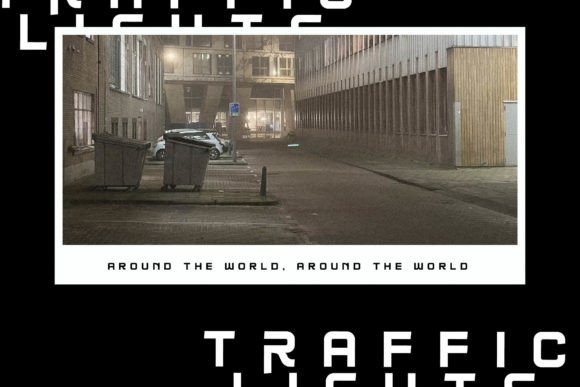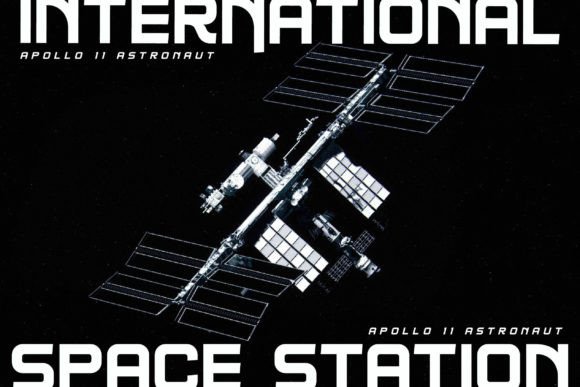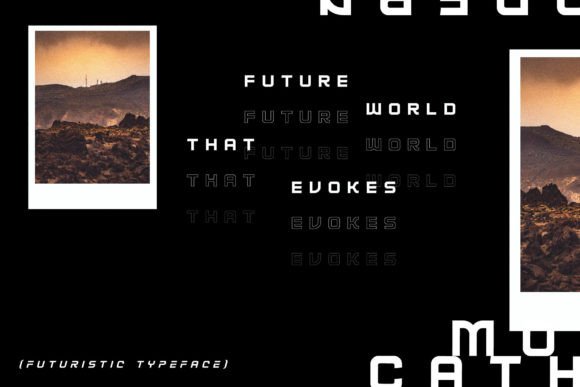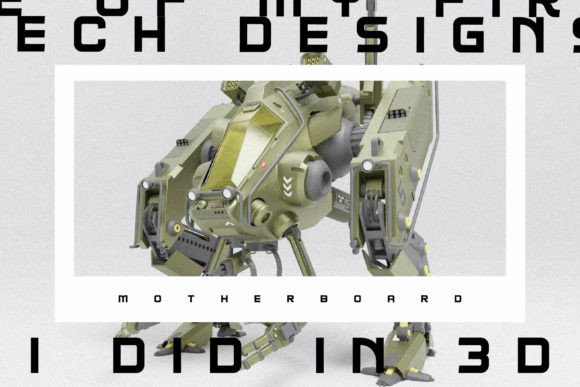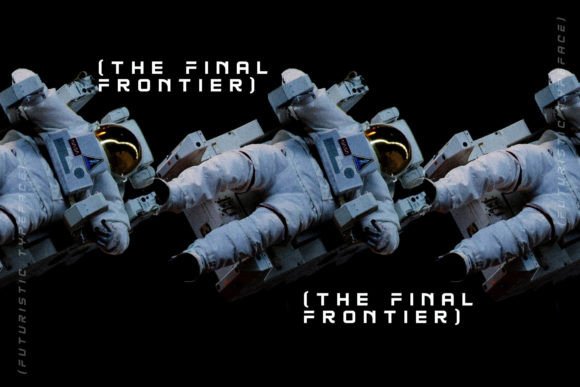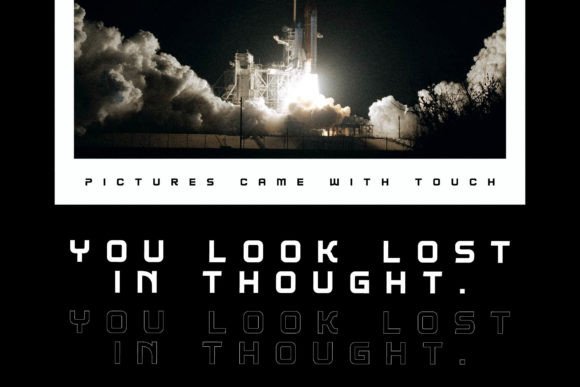
Introduction to Neo Cybern Font
Remember that moment when you’re working on a creative project and you’re searching for the perfect font to elevate your design? You browse through countless options, but nothing seems to fit the vibe you’re going for. That’s where the Neo Cybern Font comes in – a modern and classic sans serif font that’s sure to impress.
With its unique style and exquisite look, the Neo Cybern Font is perfect for an elegant and luxury logo, book or movie title design, fashion brand, magazine, clothes, lettering, quotes, and so much more. As a valuable design resource, this high-quality font offers a transparent background, making it easy to incorporate into any project. Whether you’re a seasoned designer or just starting out, the Neo Cybern Font is a must-have in your collection.
Key Features of Neo Cybern Font
- High-quality design resource with a unique, futuristic aesthetic, perfect for creative projects.
- Comes in a single weight, making it ideal for projects where a consistent font style is desired.
- Resolution-independent, ensuring crisp and clear typography across various display sizes and resolutions.
- Designed to be highly legible, even at smaller font sizes, making it suitable for a wide range of design applications.
Honest Review: Neo Cybern Font
I recently stumbled upon the Neo Cybern Font, and I’m excited to share my thoughts on this design resource. As a designer, I’m always on the lookout for high-quality fonts that can elevate my creative projects. The Neo Cybern Font definitely delivers.
- ✨ High-quality design: The font is well-crafted, with a unique blend of futuristic and cyberpunk elements that add a touch of sophistication to any design.
While the Neo Cybern Font is an excellent addition to any designer’s toolkit, I do have a few caveats to mention. ⚠️ For one, the font may not be suitable for all types of projects – its futuristic vibe might be too overwhelming for more conservative designs. Additionally, the font’s transparency feature can sometimes cause compatibility issues with certain design software.
Overall, I’m thoroughly impressed with the Neo Cybern Font. Its unique design and high-quality features make it a valuable resource for designers working on creative projects. While it may have some limitations, I believe the benefits far outweigh the drawbacks.
Tips for Getting the Most Out of Neo Cybern Font
Use Neo Cybern Font on a transparent background to create a unique and eye-catching design. Experiment with different font sizes and colors to add depth and visual interest to your creative project. You can also combine Neo Cybern Font with other design resources to create a cohesive and high-quality design.
Neo Cybern Font is perfect for any creative project that requires a modern and sleek look. Some common use cases include: designing a website or app, creating a presentation or report, or adding text to a social media graphic. With its transparent background and high-quality design, Neo Cybern Font is a great design resource to have in your arsenal.